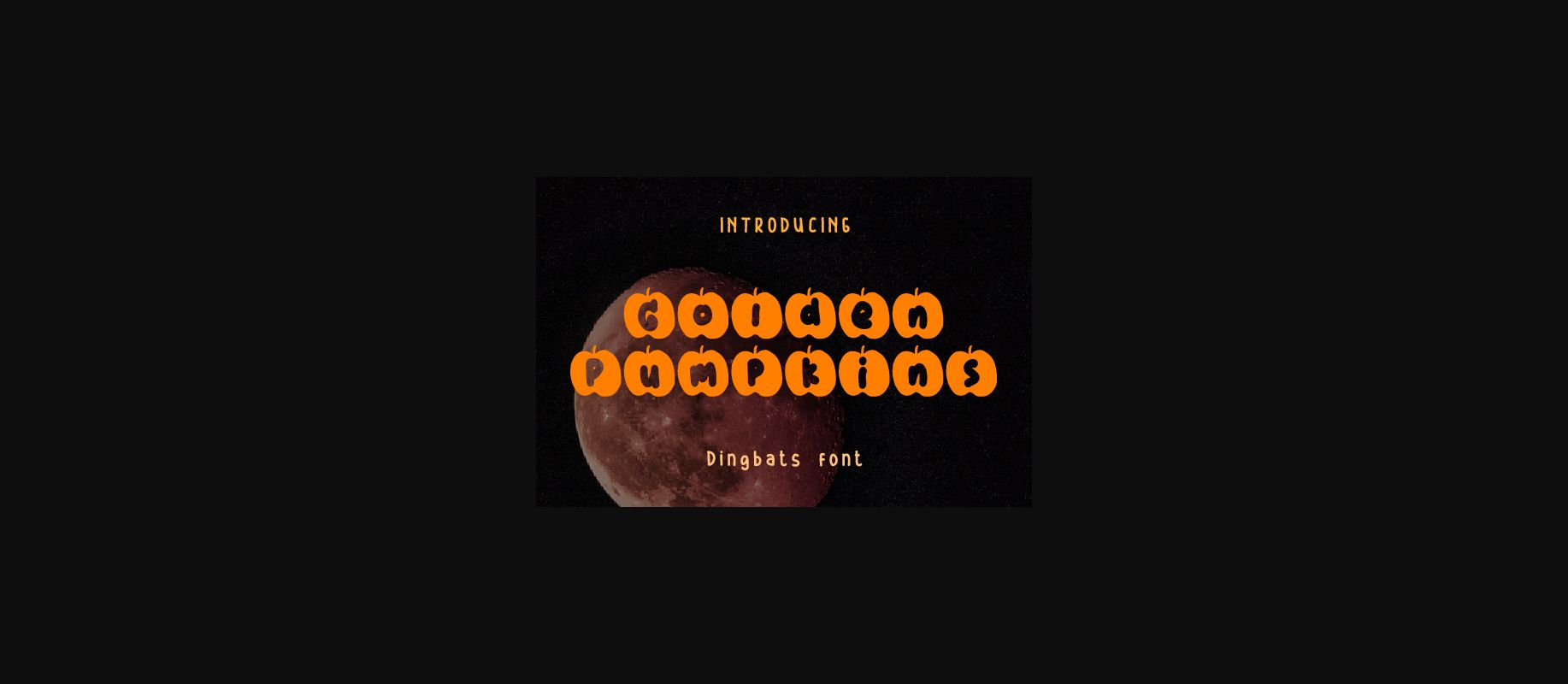
Golden Pumpkins Font
About Golden Pumpkins Font
Golden Pumpkins is an incredibly unique decorative font. It is ideal for each of your Halloween designs and fall themed projects.